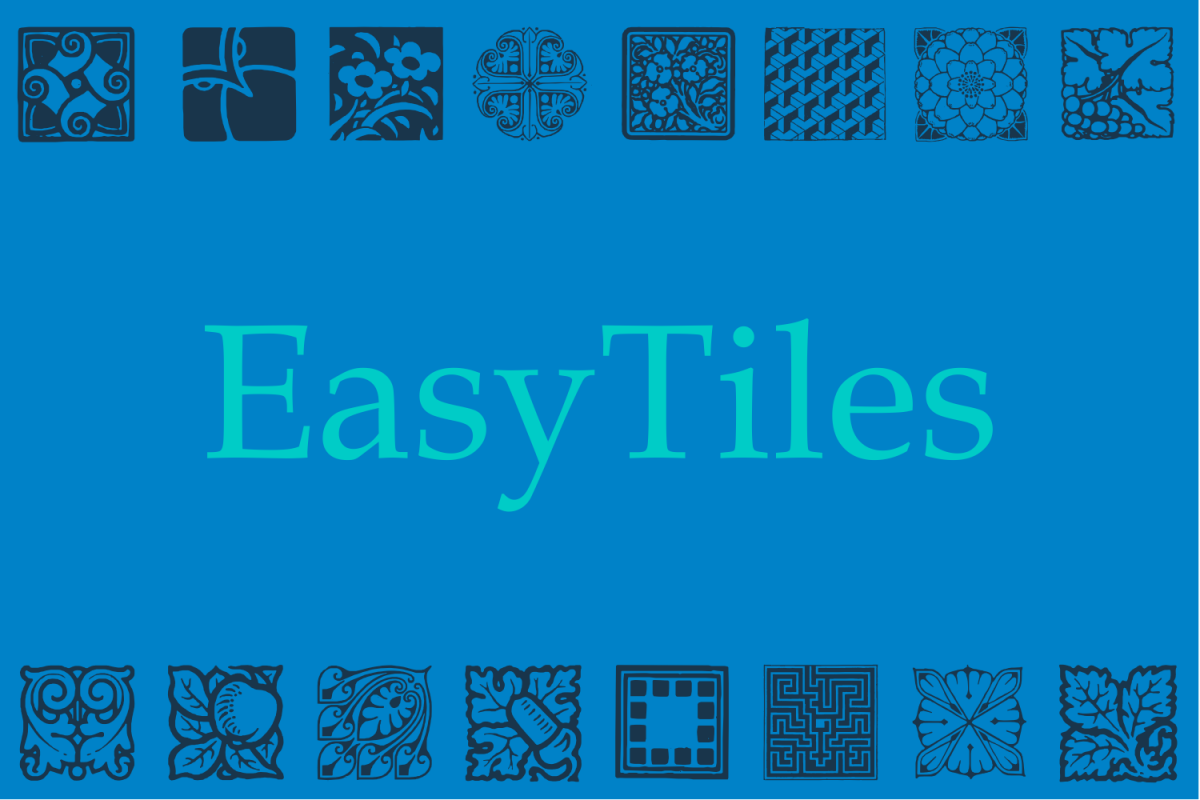
Easy Tiles One
EasyTiles
A nice mix of 62 decorative tile images.Designs are reminiscent of rubber stamps of architectural tiles found in historical homes and other buildings through the ages and printed devices from old catalogues.Generic enough to add interesting detail to just about any design. From invitations and greeting cards to book jackets, labels or fabric. Available too in a cheap pack with the vol 2 here : https://fontbundles.net/intellecta-design/49185-easy-tiles-pack